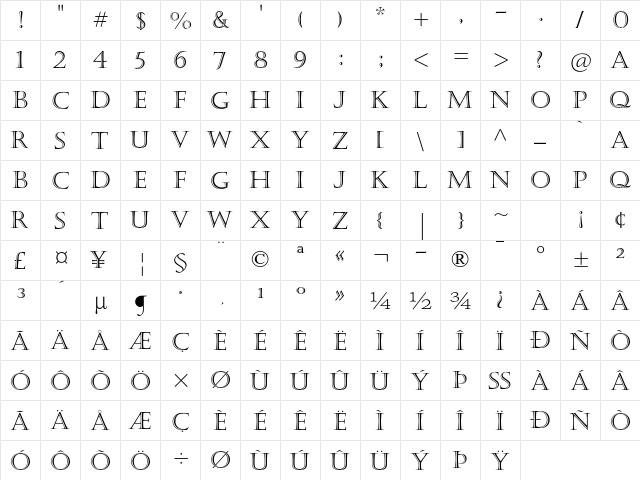
Castellar MT Std Regular
| Designer | John Peters |
Design Context for Castellar MT Std Typeface
Castellar MT Std is a composed and adaptable typeface that performs quietly and consistently across a wide range of design contexts.
Pro Tip: Use Castellar MT Std in both headline and body roles to test its range before committing to a single application.